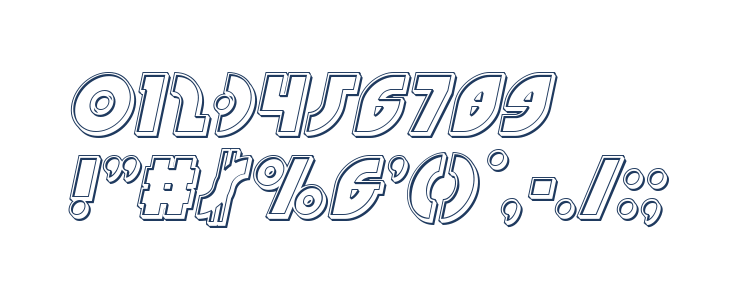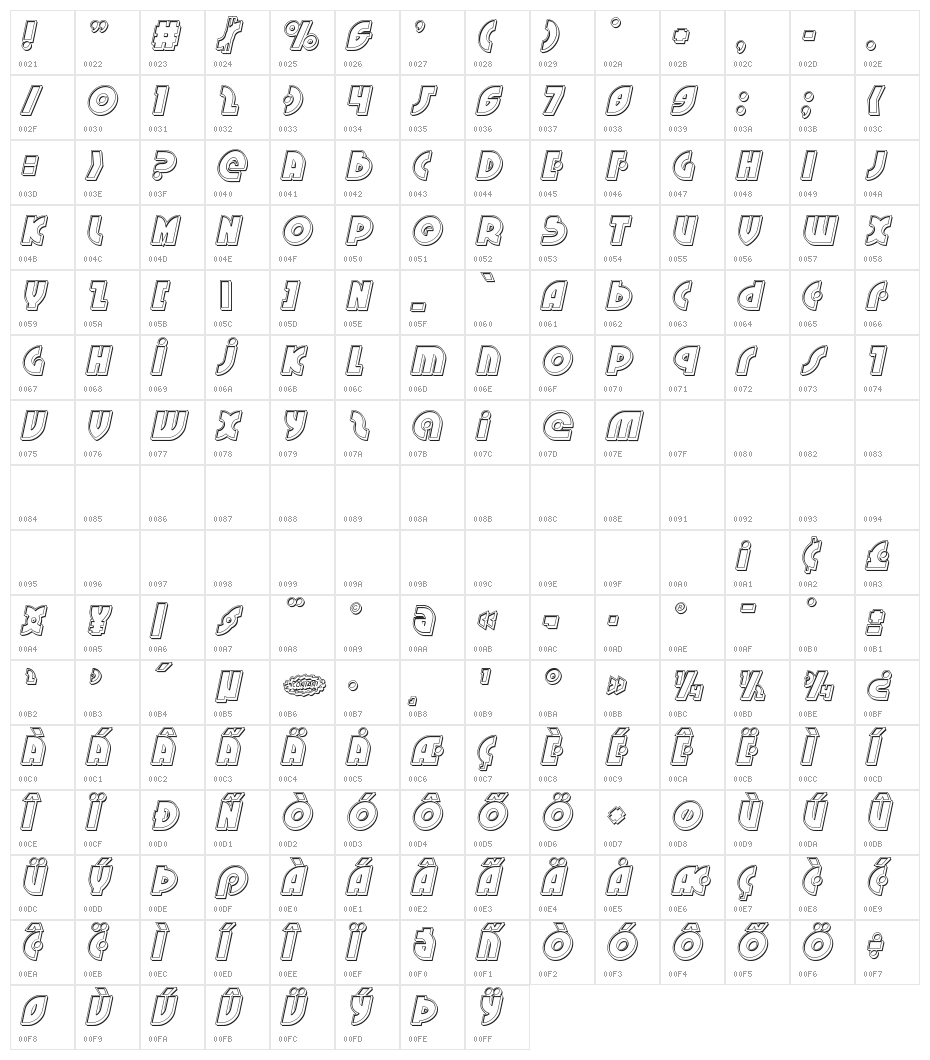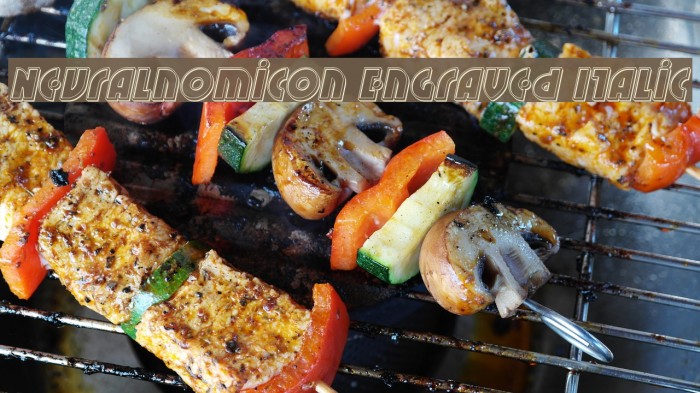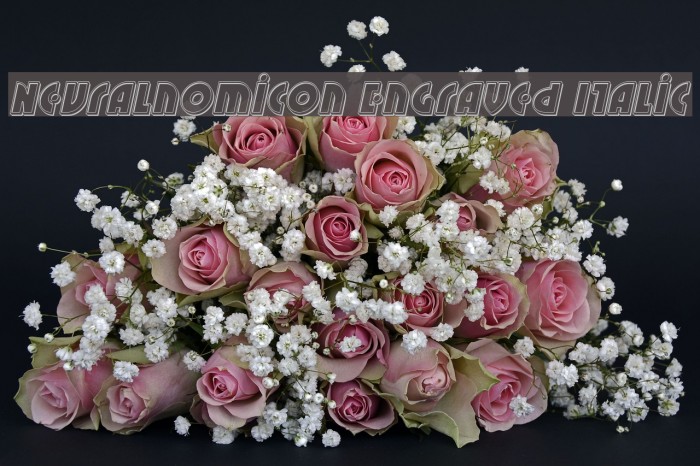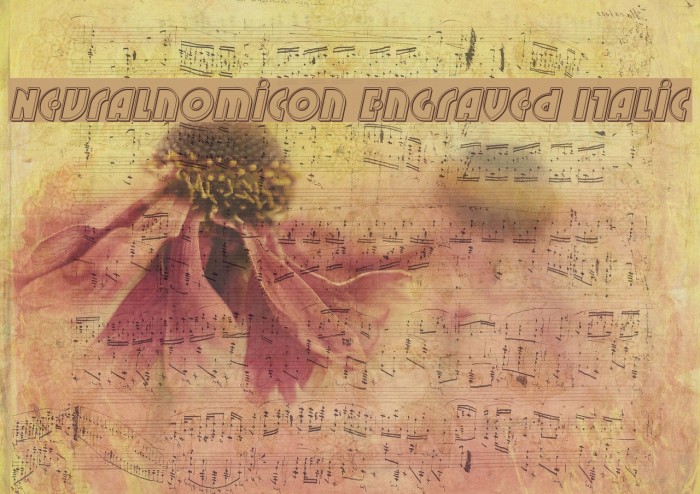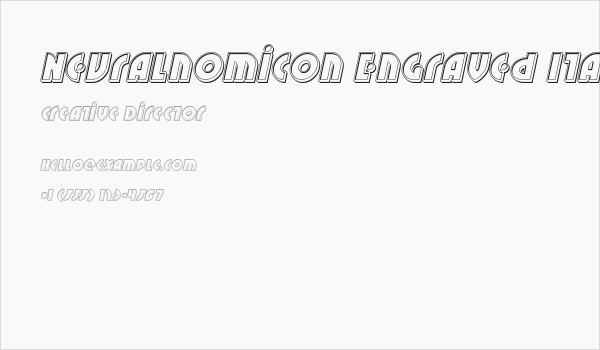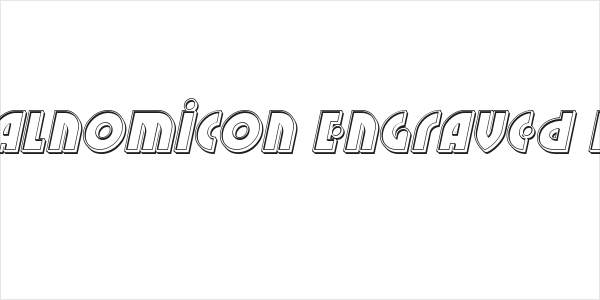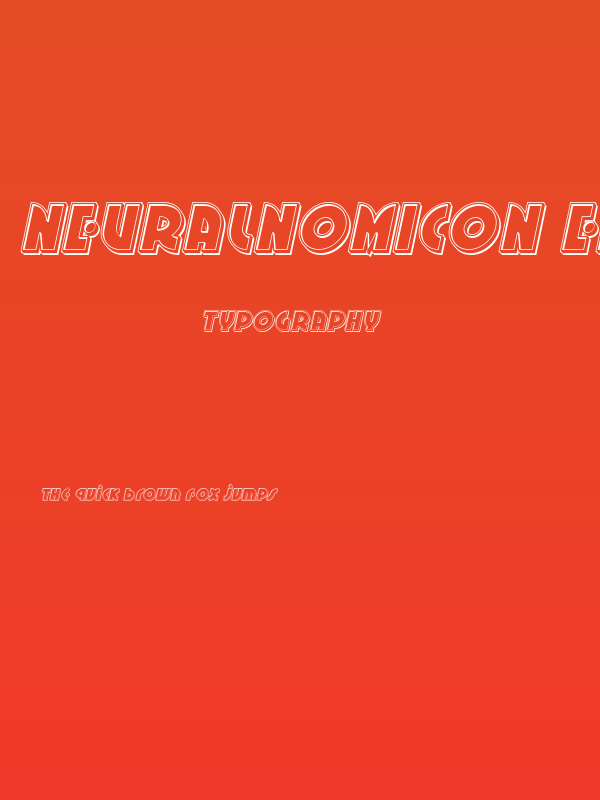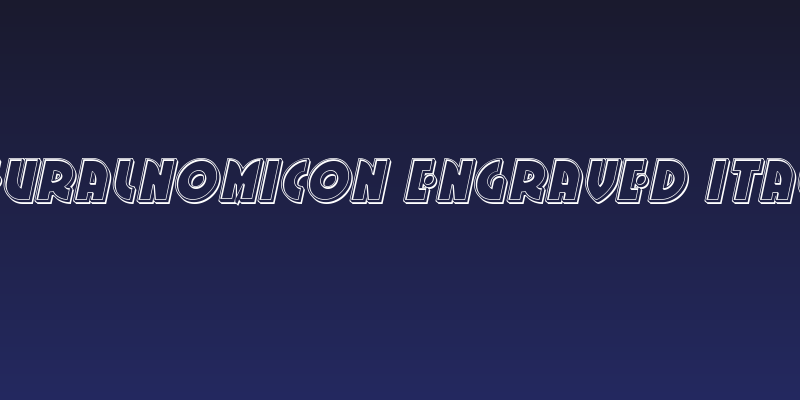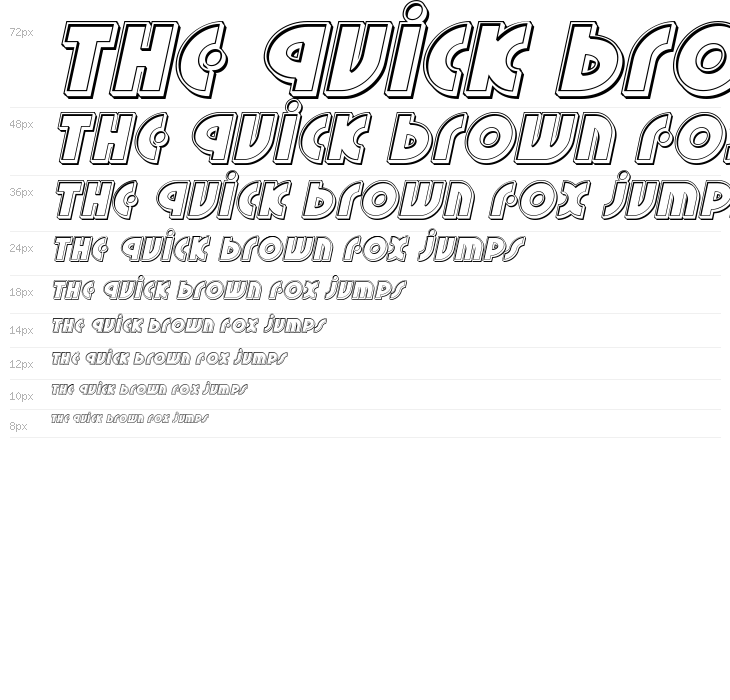
Neuralnomicon Engraved Italic Font
Neuralnomicon Engraved Italic Description
This font features a bold, engraved style with a futuristic and geometric aesthetic. The characters are outlined, giving them a three-dimensional appearance, and the italic slant adds a dynamic and forward-moving feel. The uppercase and lowercase letters maintain a consistent style, with rounded edges and a sense of depth. The numerals and special characters follow the same design principles, ensuring uniformity across all glyphs. This font's unique style makes it stand out, suitable for projects that require a modern and eye-catching typeface.
| Proposed Projects | Ideal for sci-fi themed posters, video game titles, tech branding, and modern graphic design projects. |